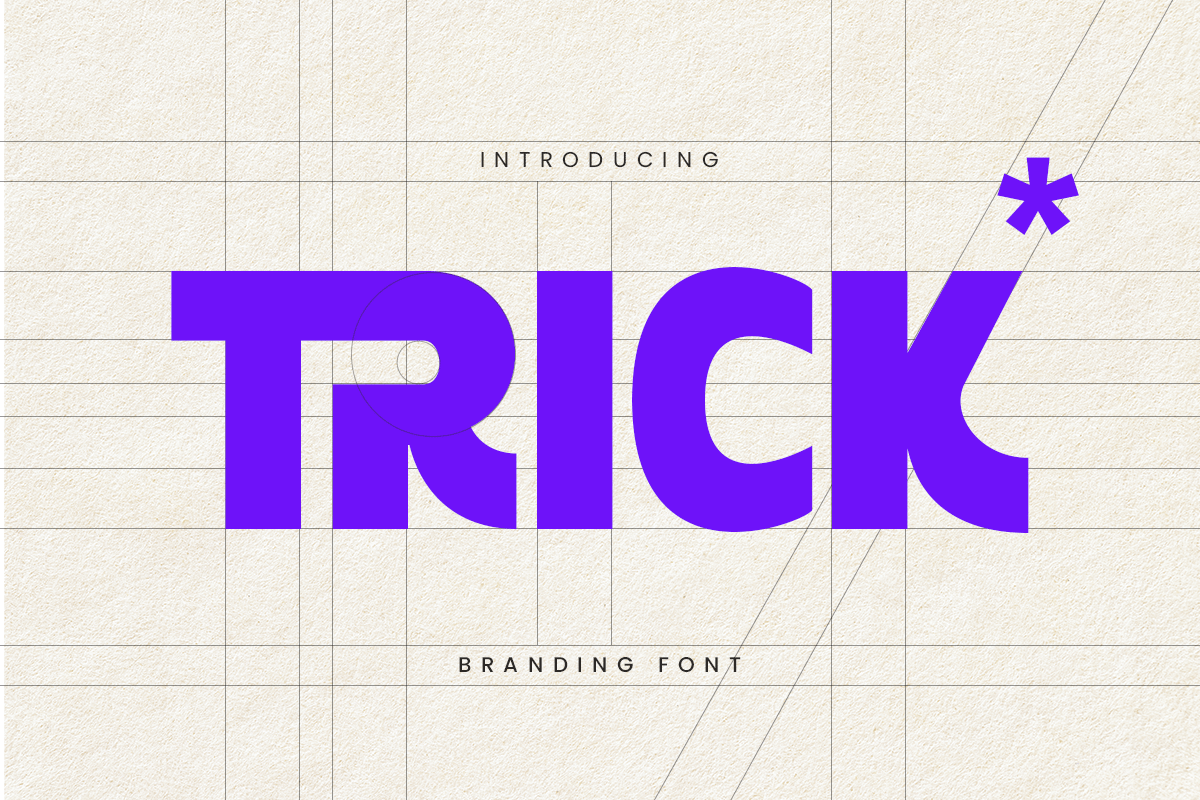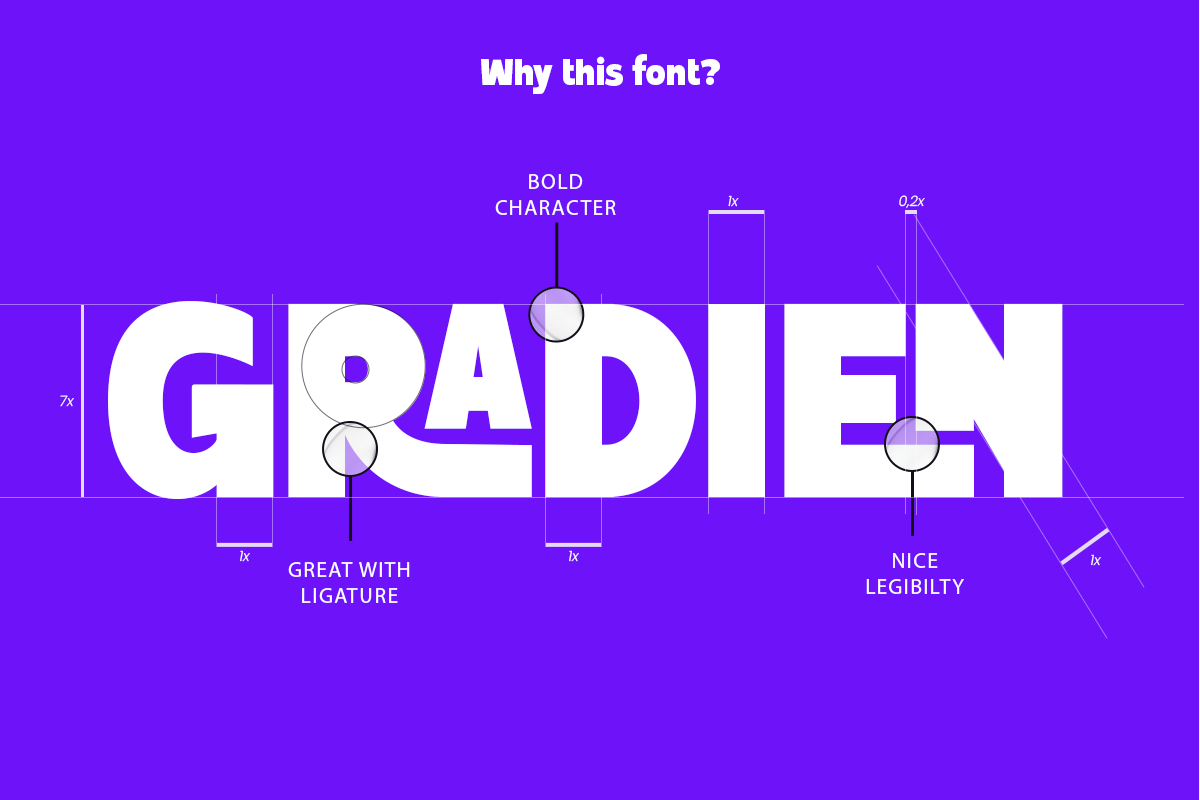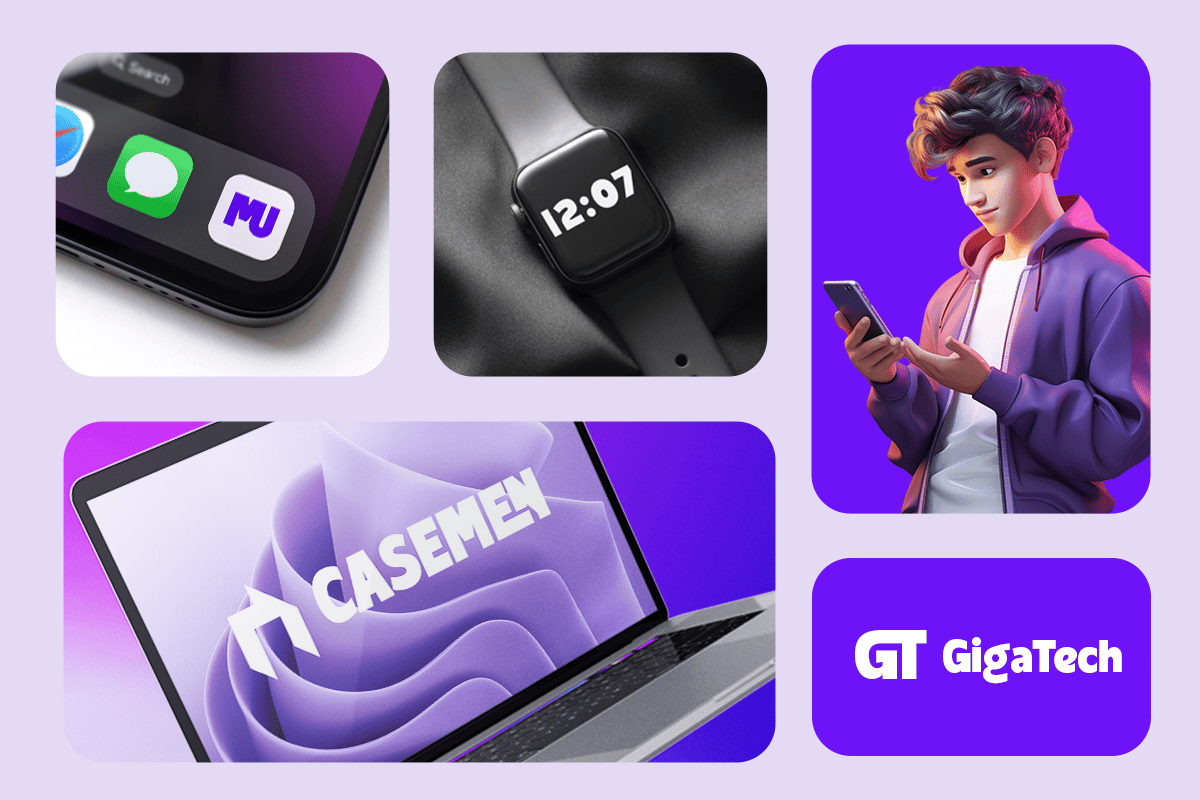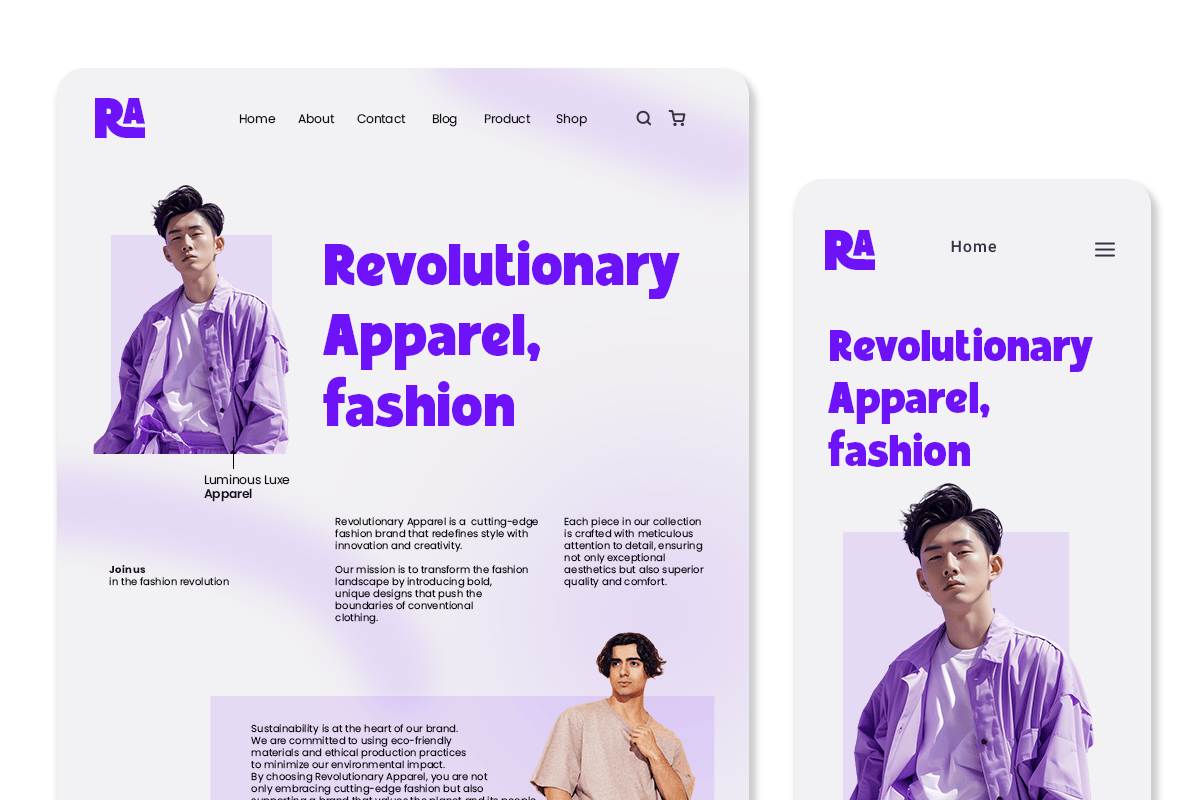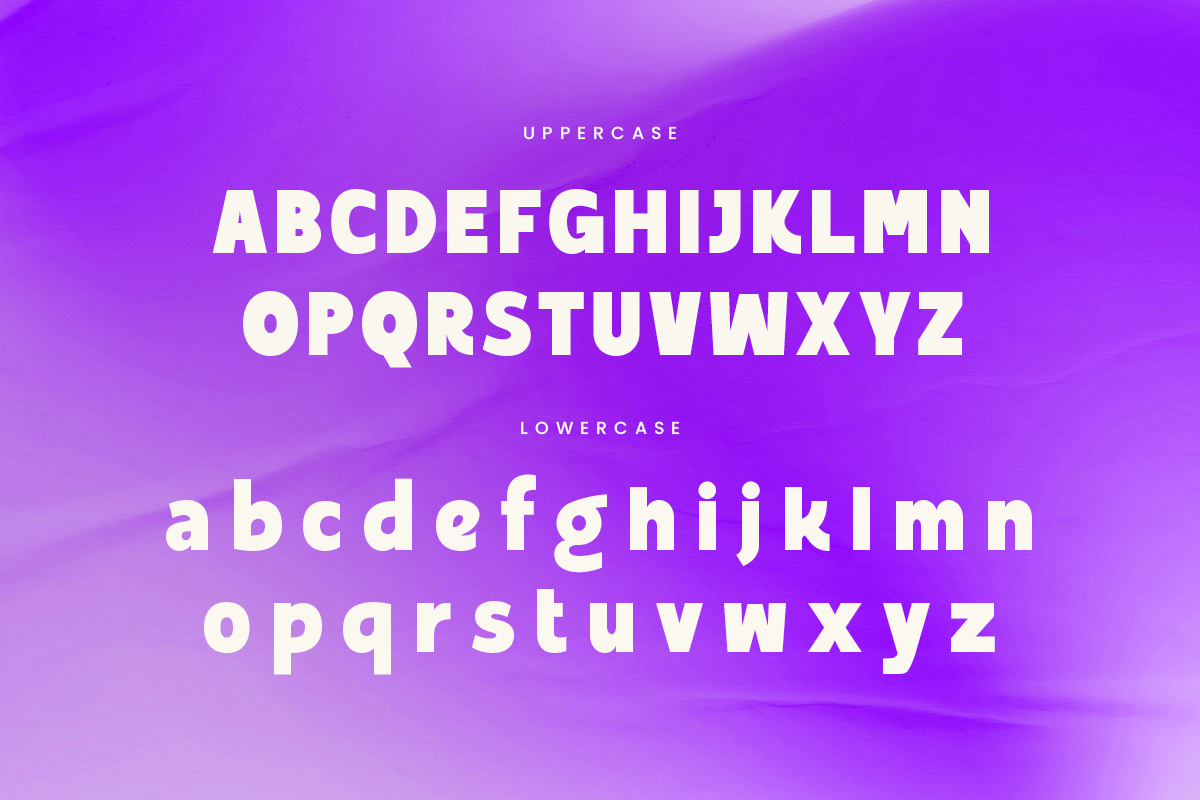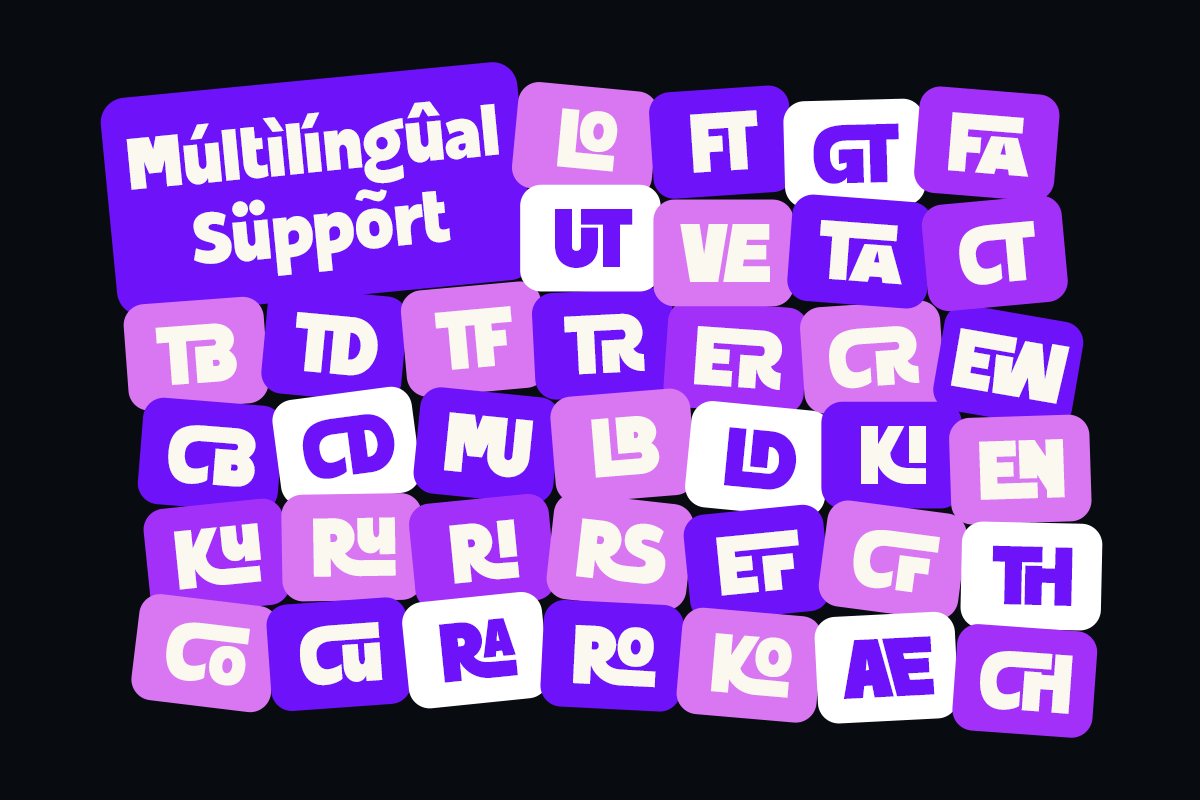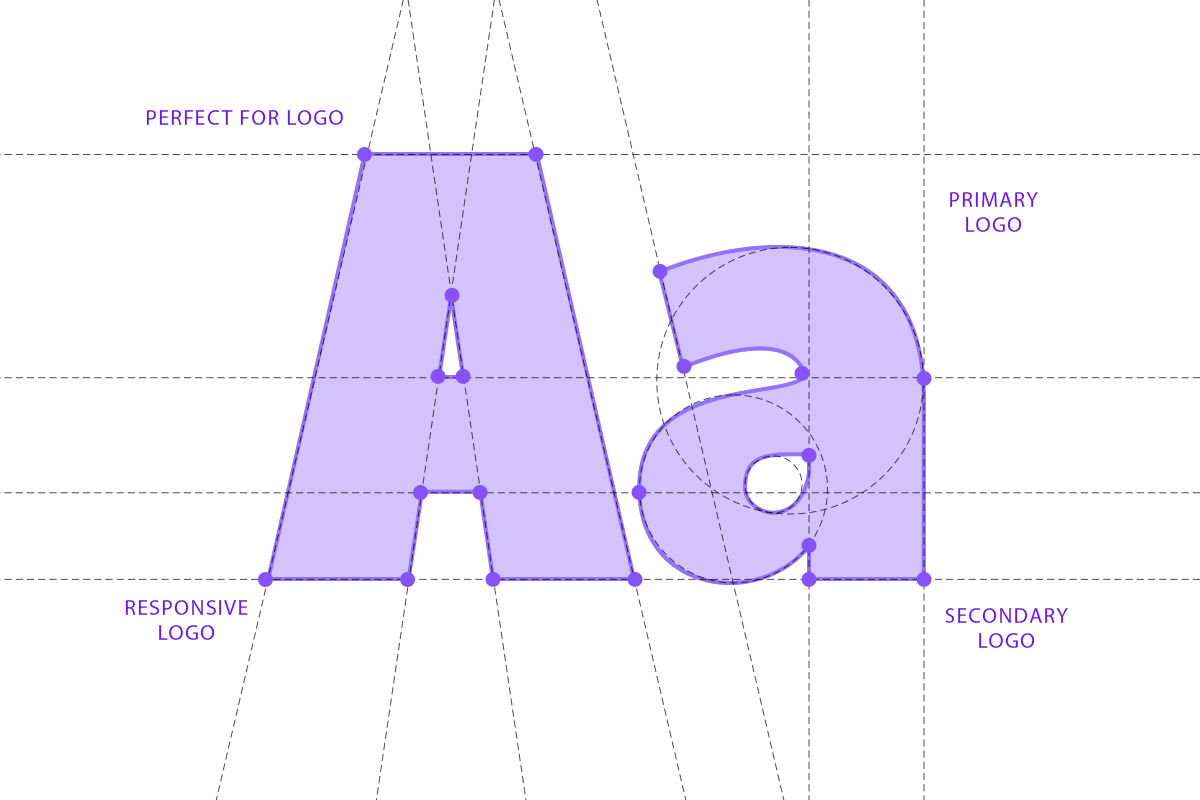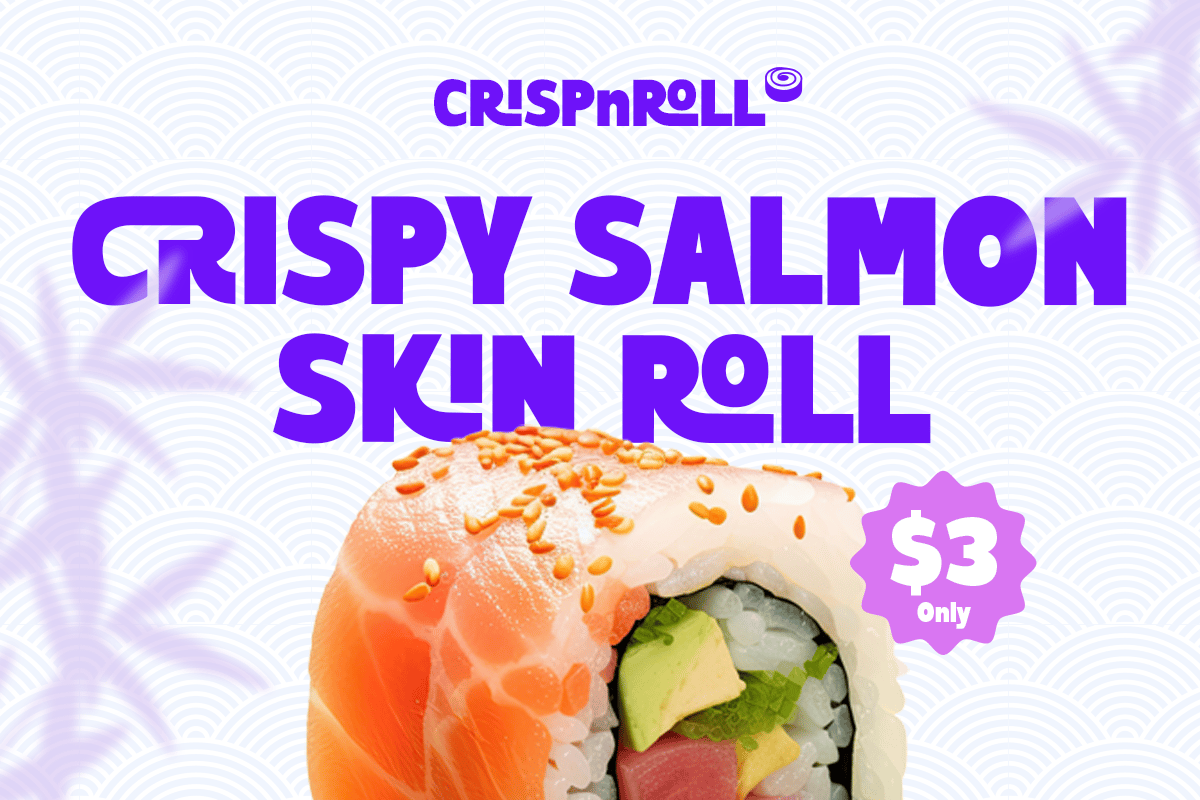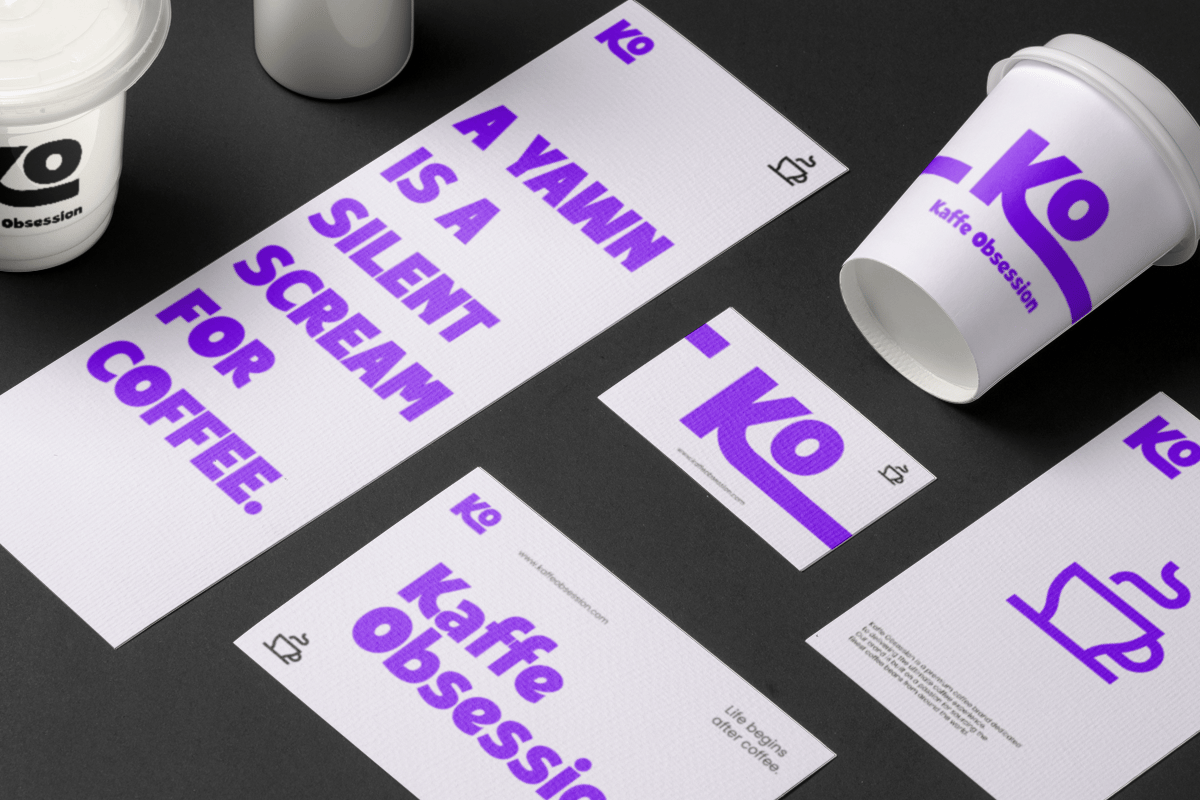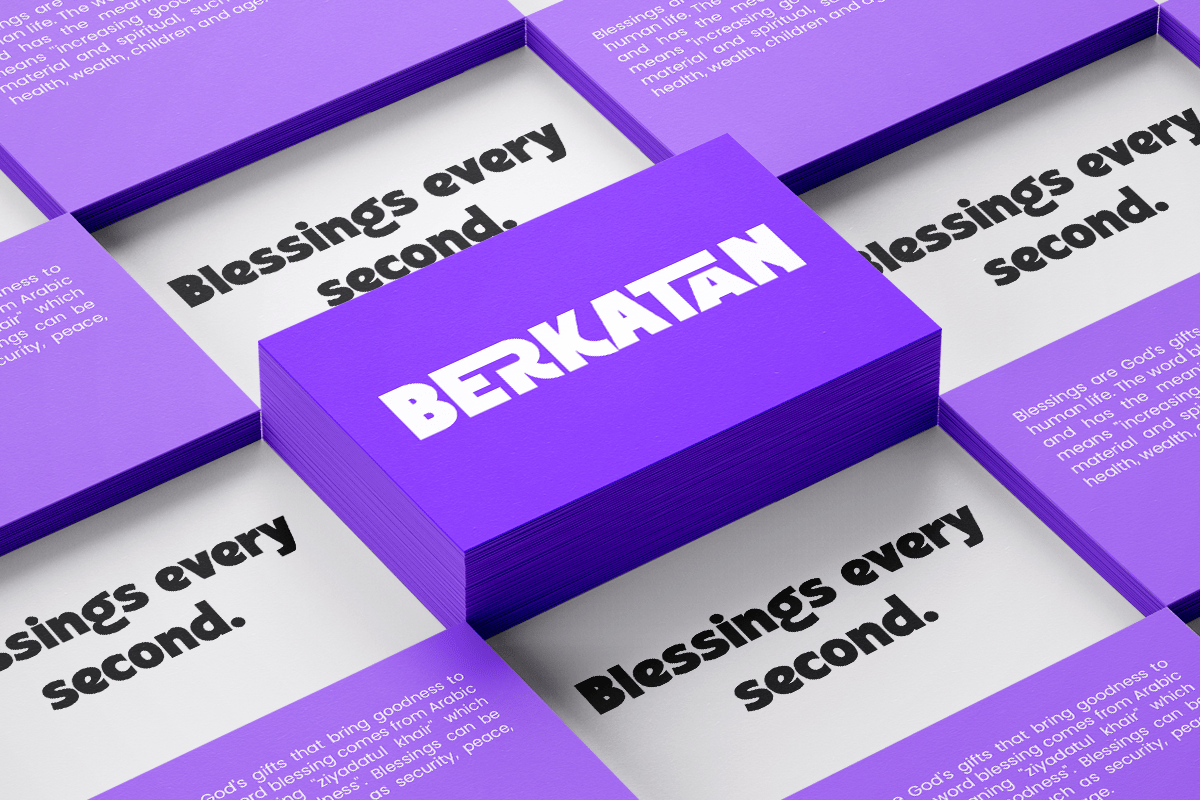
Trick – Branding Font
TRICK is a unique logo font designed to make your brand stand out. Inspired by modern design trends, TRICK combines stylish elements with a creative flair, ensuring your branding is memorable and distinct. Its versatile nature makes it perfect for a wide range of applications, from logos and business cards to product packaging and digital media. TRICK features clean lines and bold shapes, adding a professional and innovative touch to your projects. Whether you’re rebranding a company or launching a new product, TRICK provides the unique identity your brand needs to leave a lasting impression.
Elevate your branding with TRICK, the unique logo font that ensures your brand stands out.